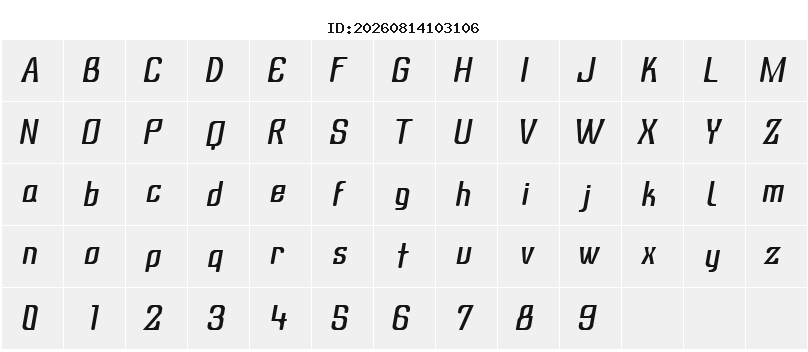
• Font Name: Subatonik
• Font ID: Macromedia Fontographer 4.1 Subatonik Italic
• Full Font Name: Subatonik Italic
• Version: Macromedia Fontographer 4.1 2000.12.03.
• PostScript Name: SubatonikItalic
About Subatonik.ttf
Subatonik.ttf is a modern, elegant sans-serif font designed for ultimate readability and visual harmony. Perfect for branding, headlines, web design, and print materials.